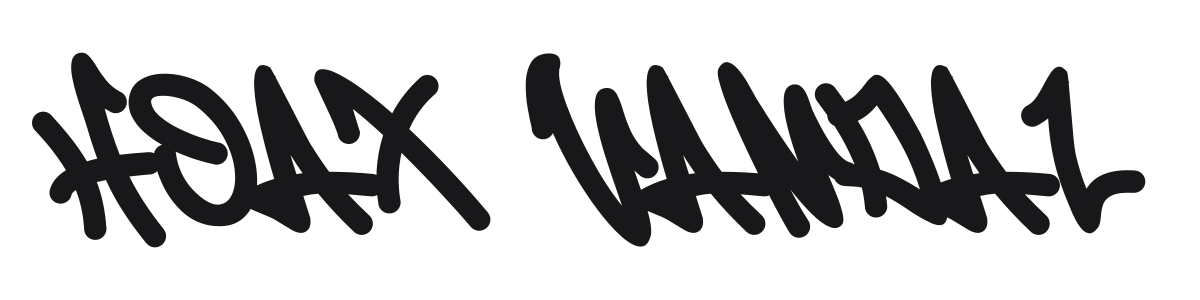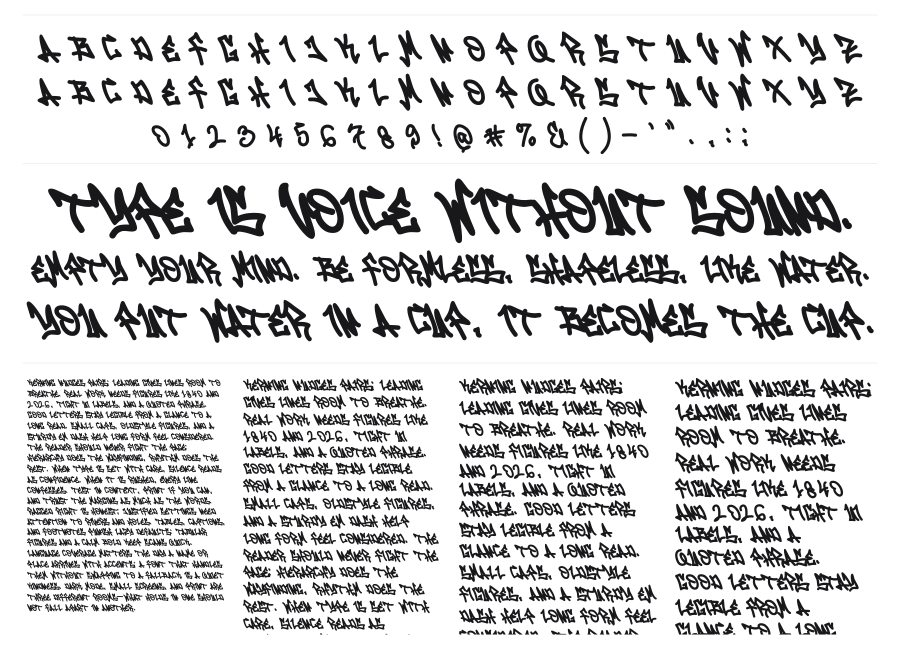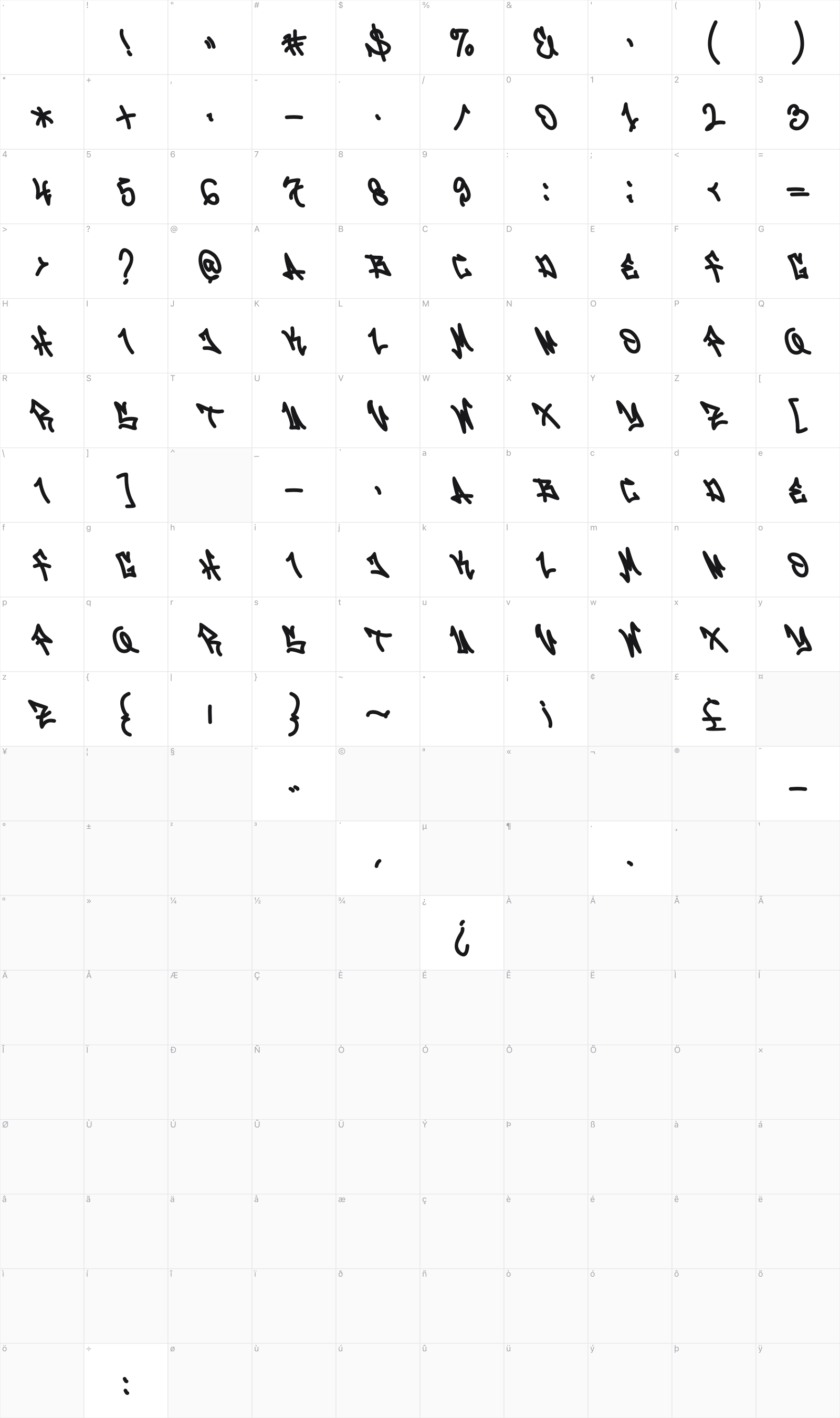
Hoax Vandal
Hoax Vandal is a graffiti throwup-style script that captures the raw energy of street tagging with dense, irregular strokes and jagged connected letters. The heavy weight and angular rhythm give it an unmistakably urban, rebellious attitude. It works at large sizes where the chaotic detail reads as attitude rather than noise.